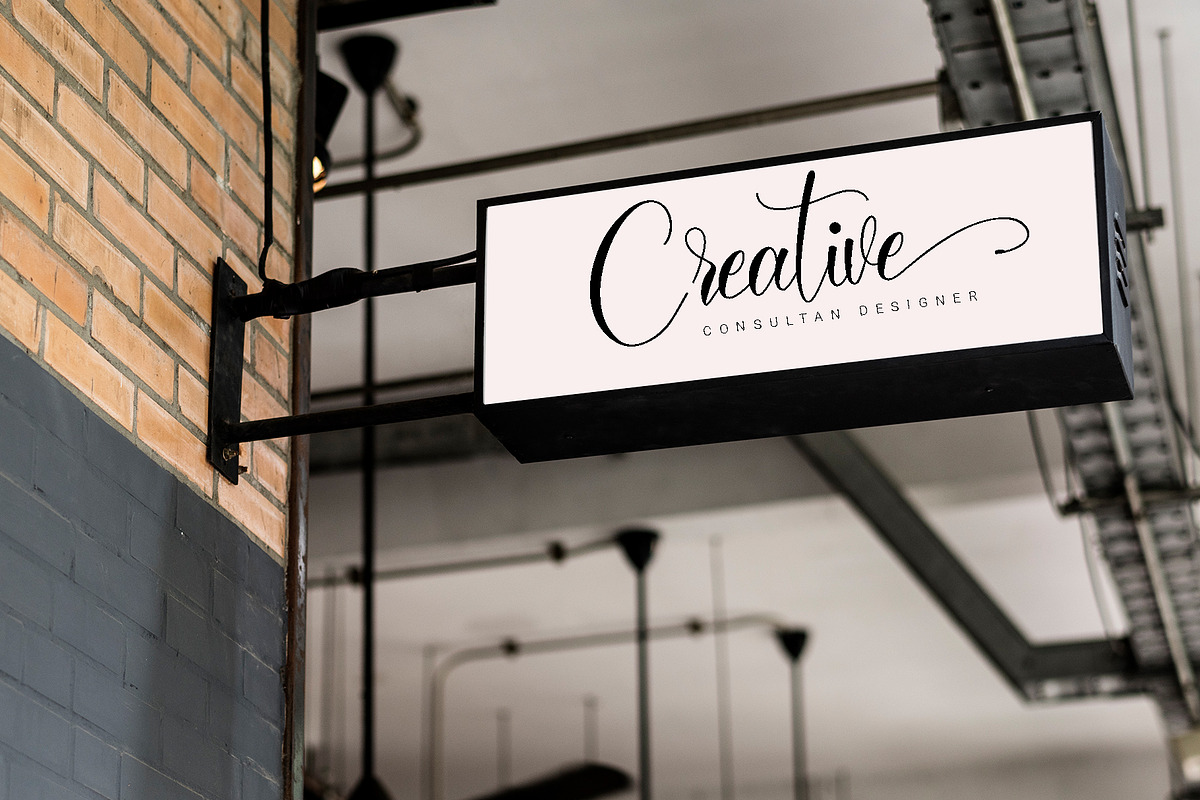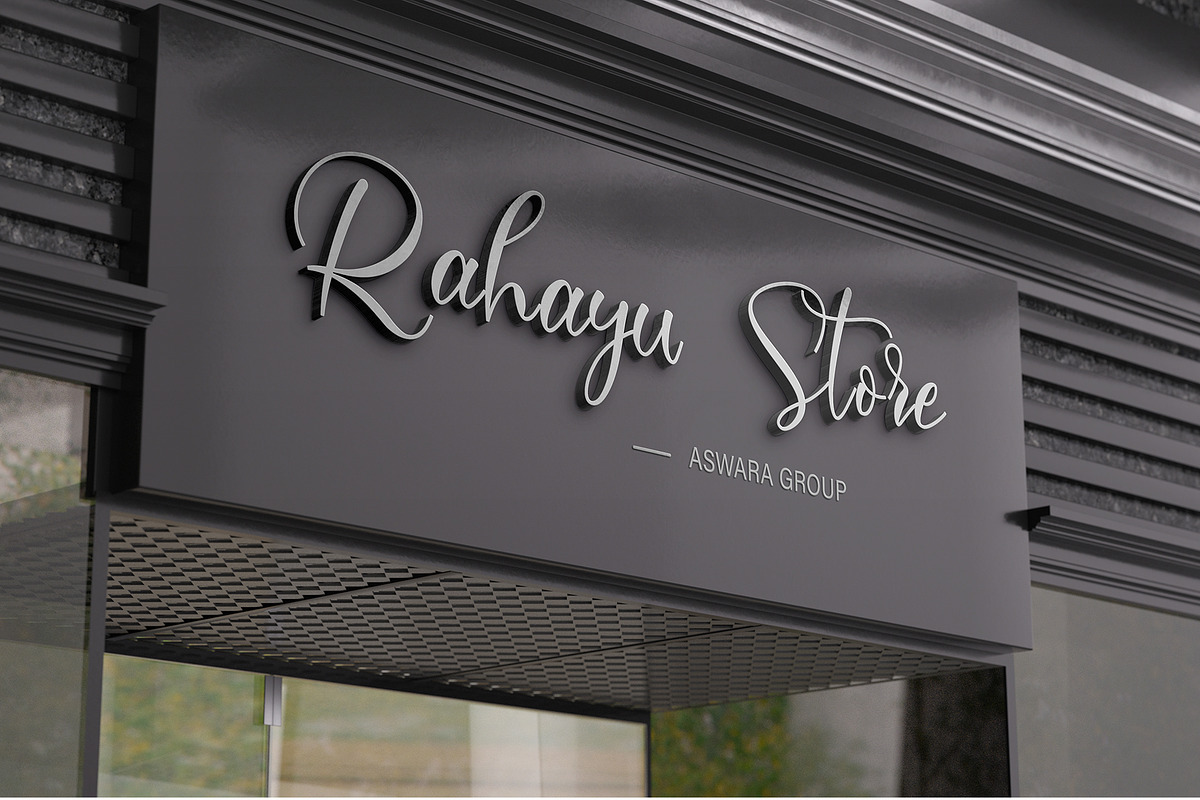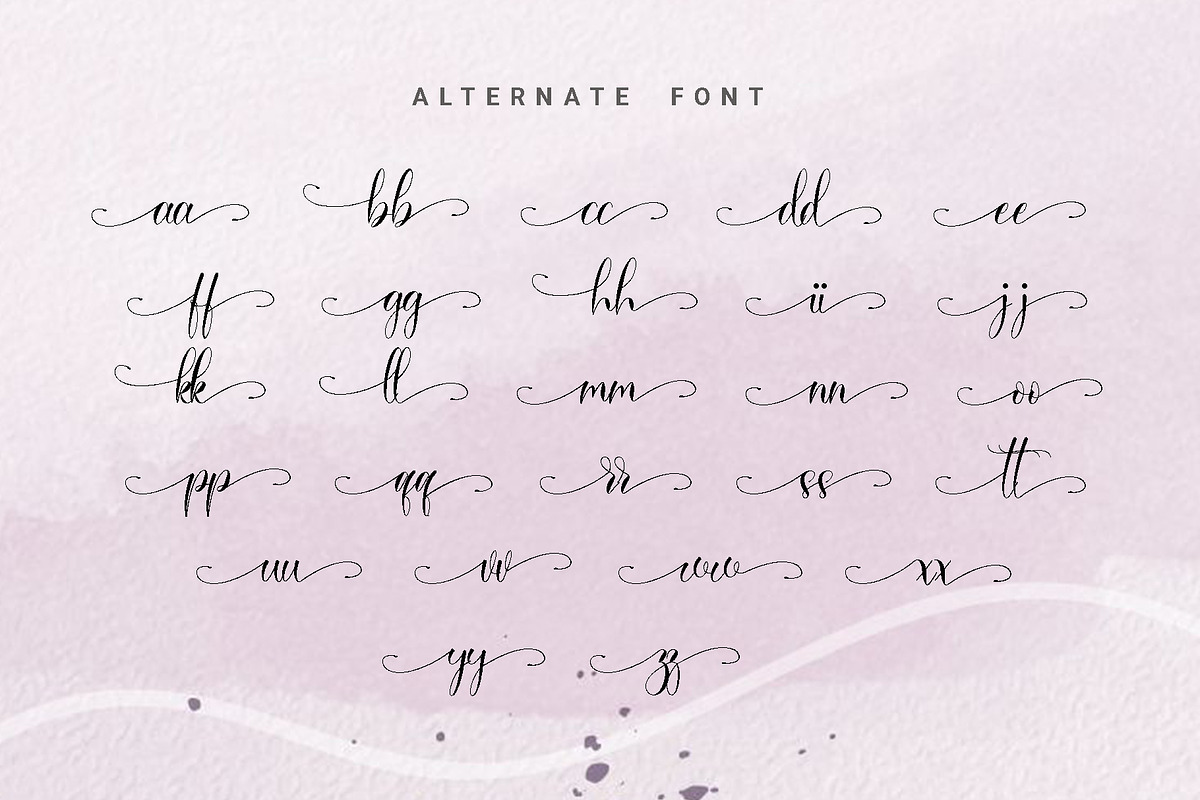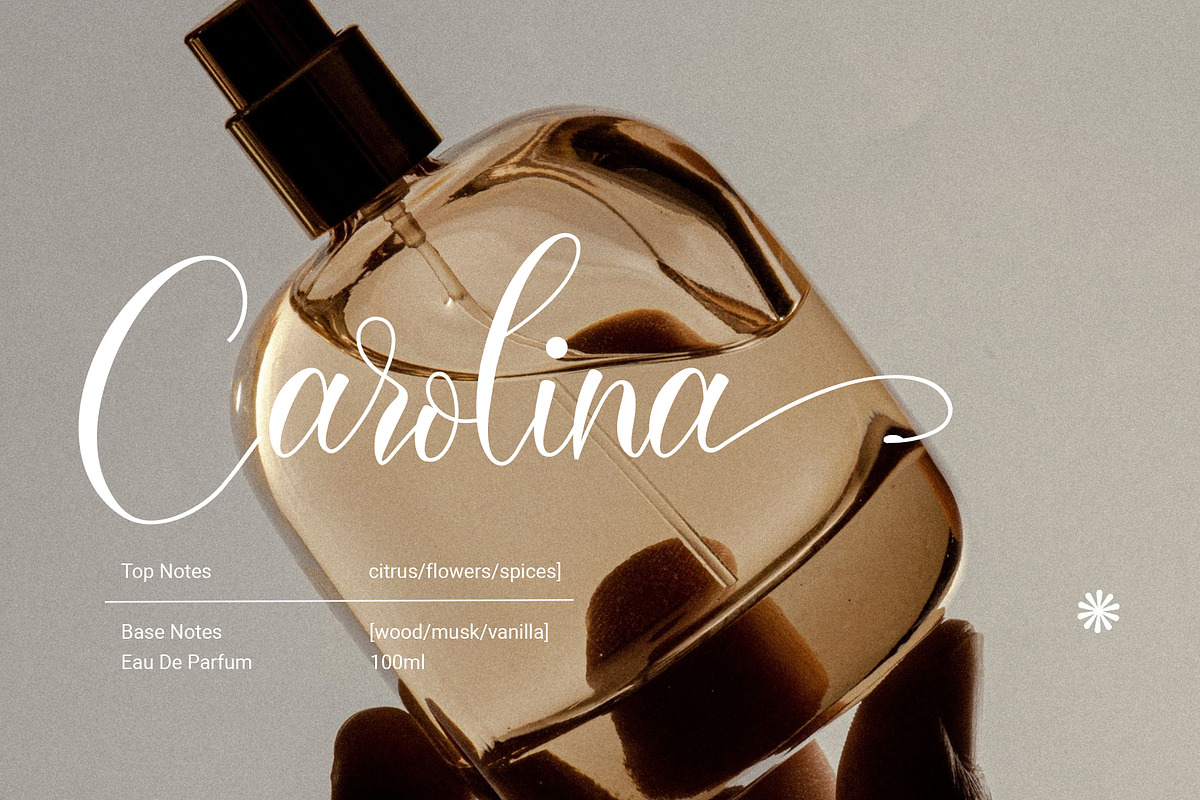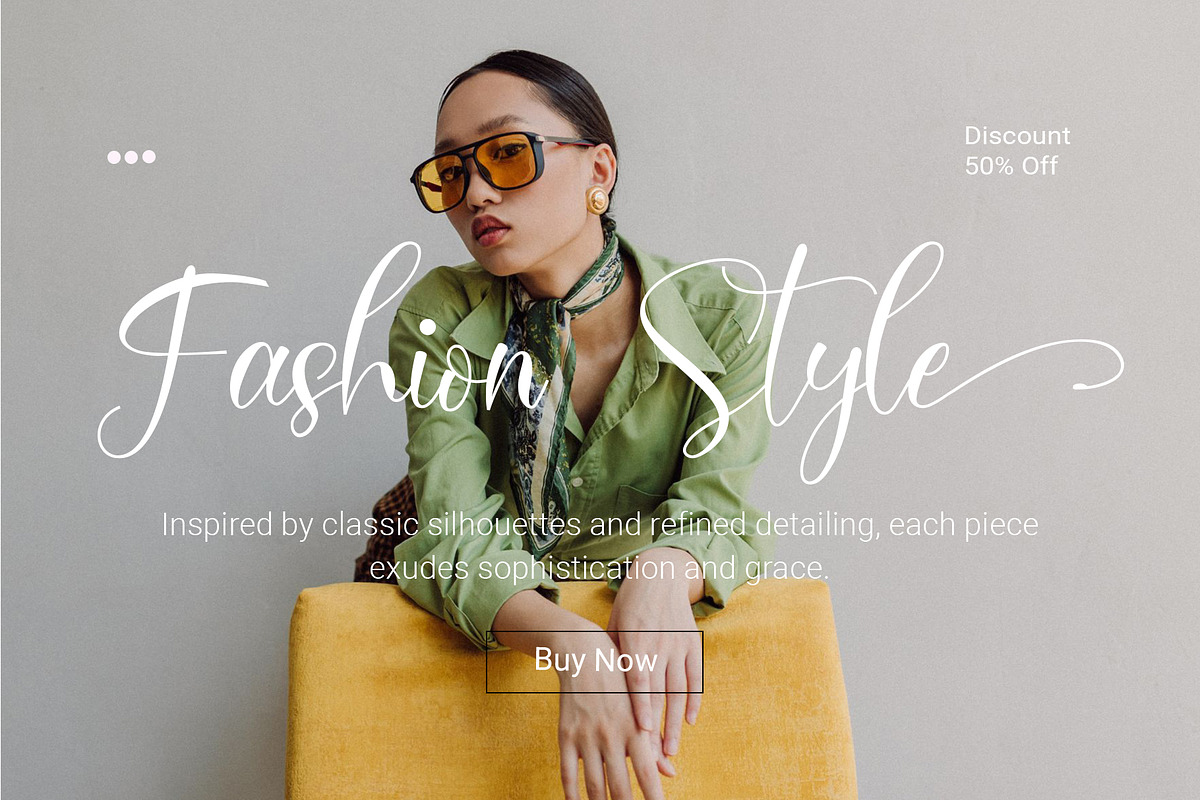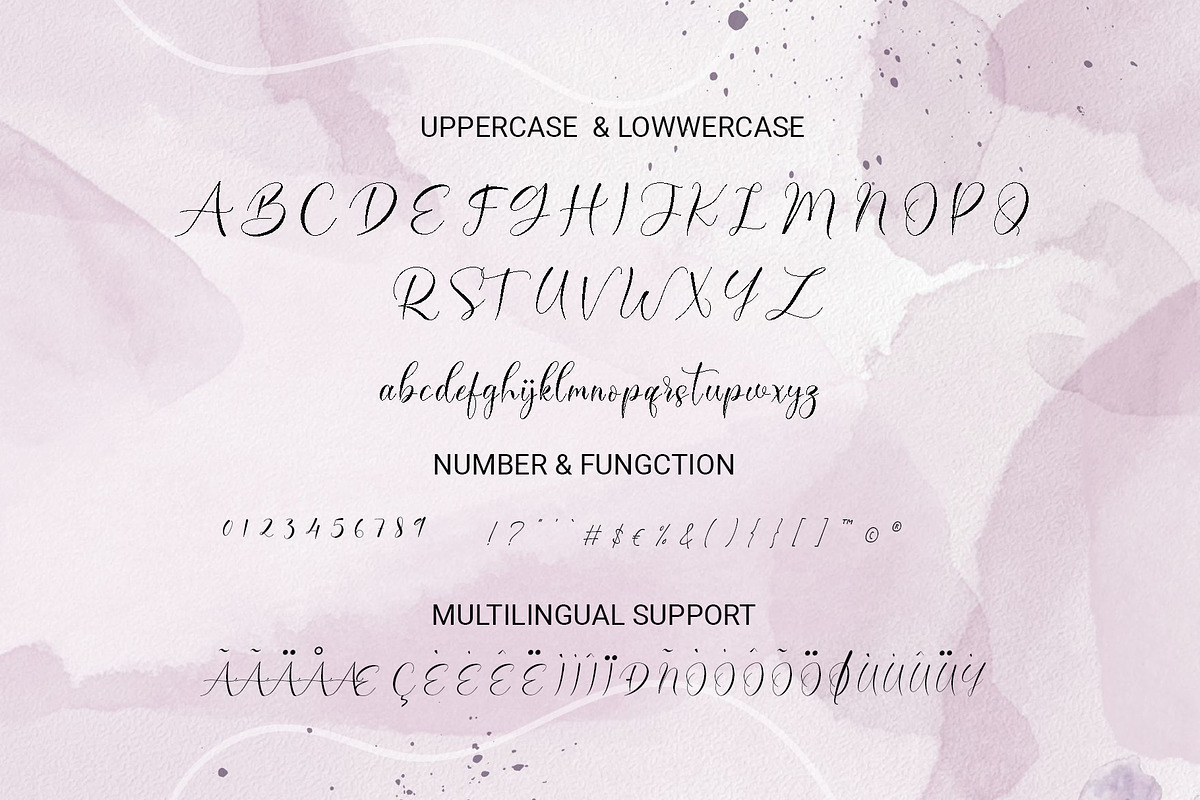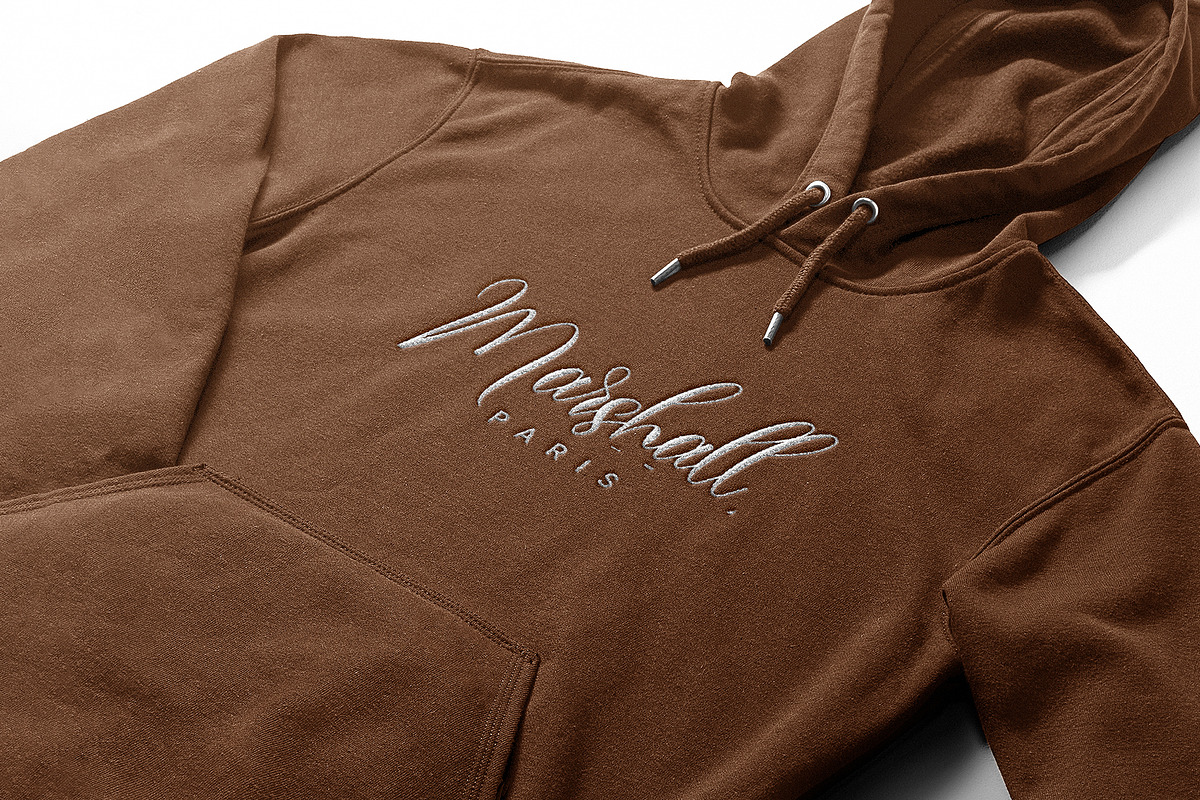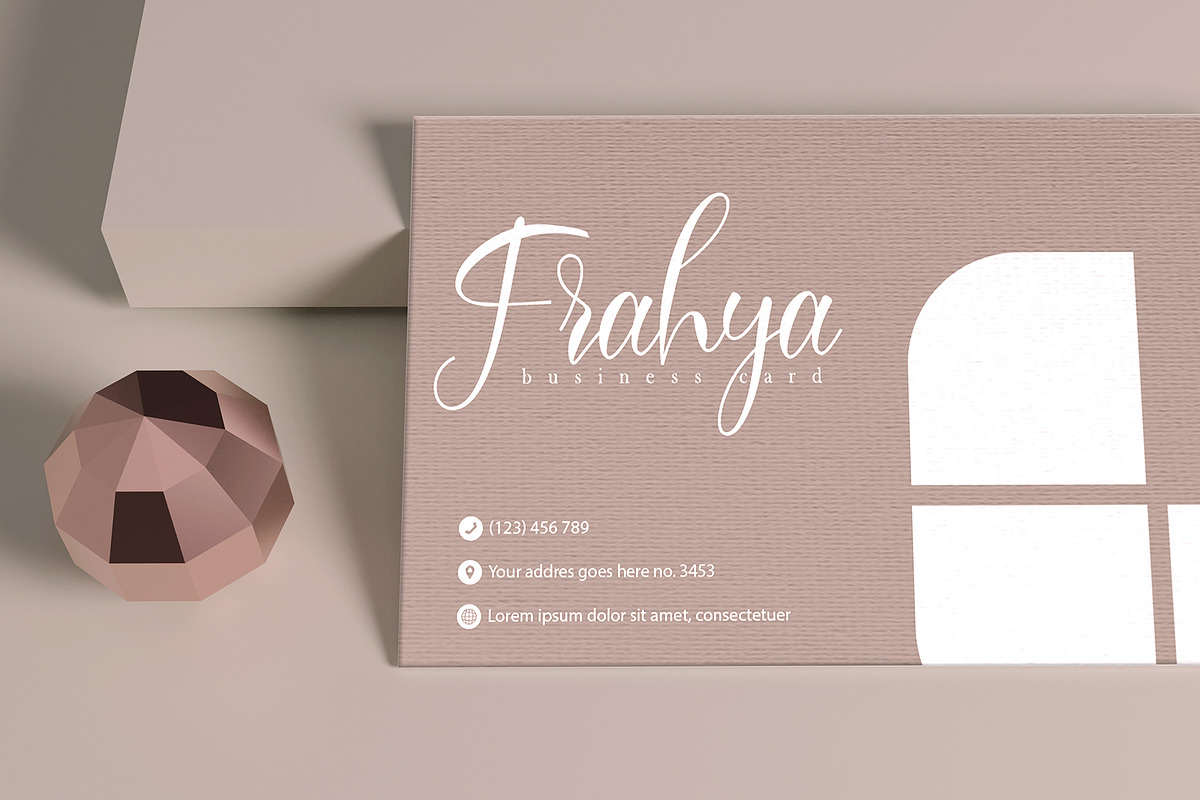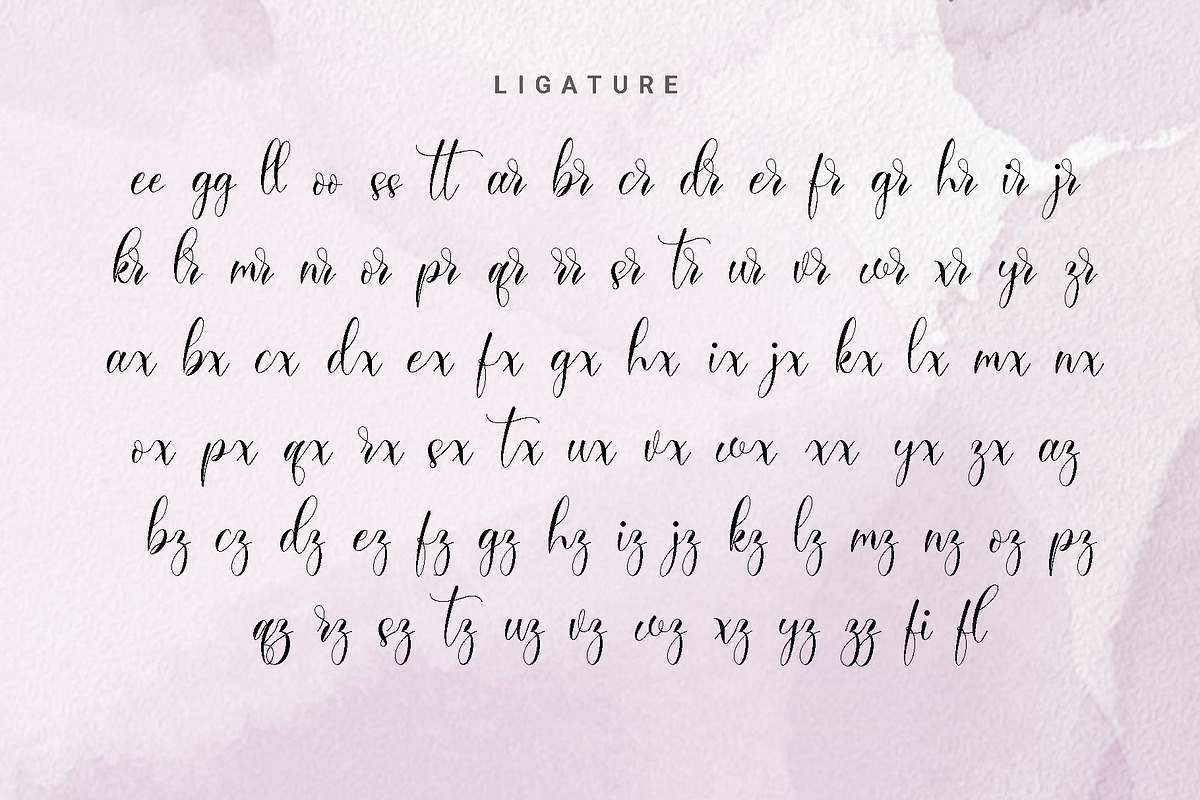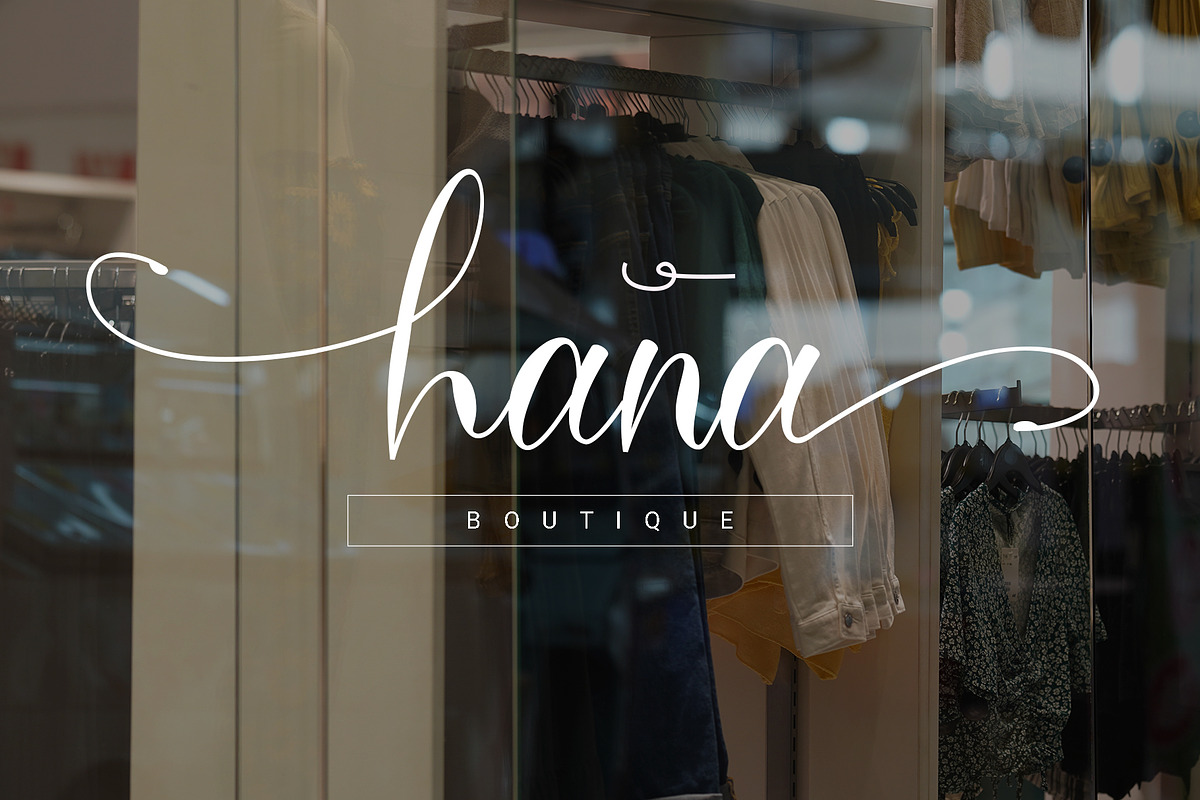
Sandara Script- A Modern Calligraphy
Hello everyone, I would like to introduce Sandara Script - A Modern Calligraphy Font.
Sandara Script - A Modern Calligraphy Font with Handmade character. Sandara Script - A Modern Calligraphy Font , Modern font to make your design project stand out! Sandara Script is a perfectly choice for any creative endeavor, creating, modern, chic, lifestyle design such as logotype, title, cover, branding, invitations, wedding designs, display and magazine, social media posts, advertisements, printed quotes, product packaging, corporate brand, product designs, labels, photography, watermarks, special events and any other project with modern touch.